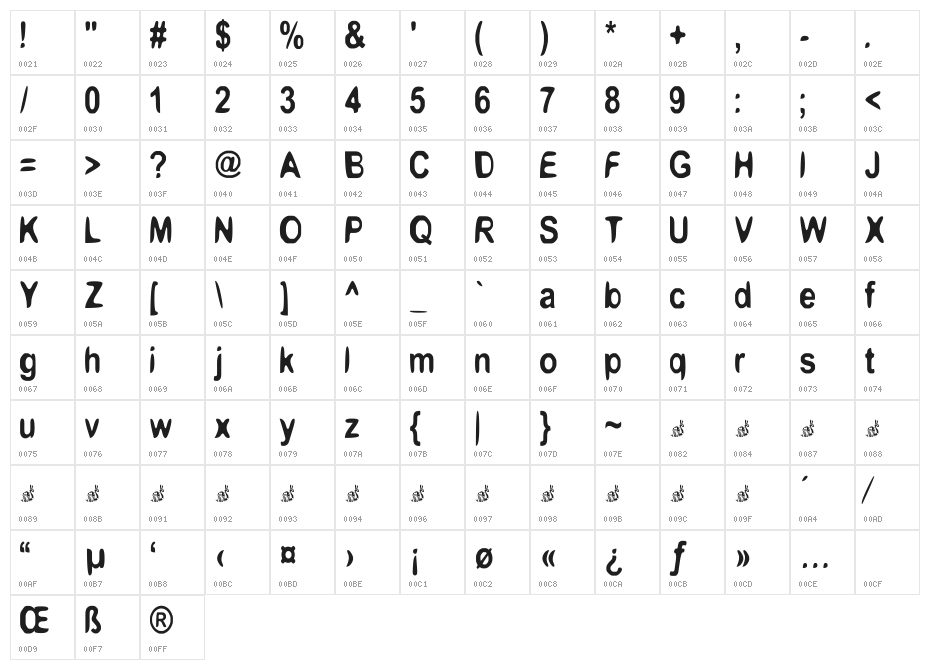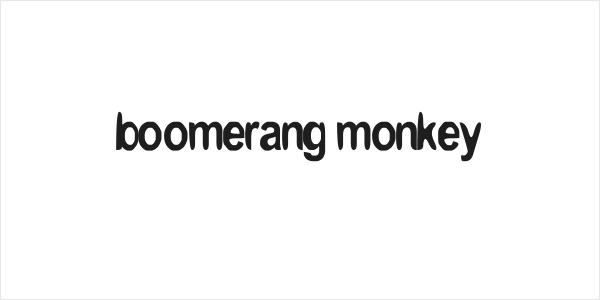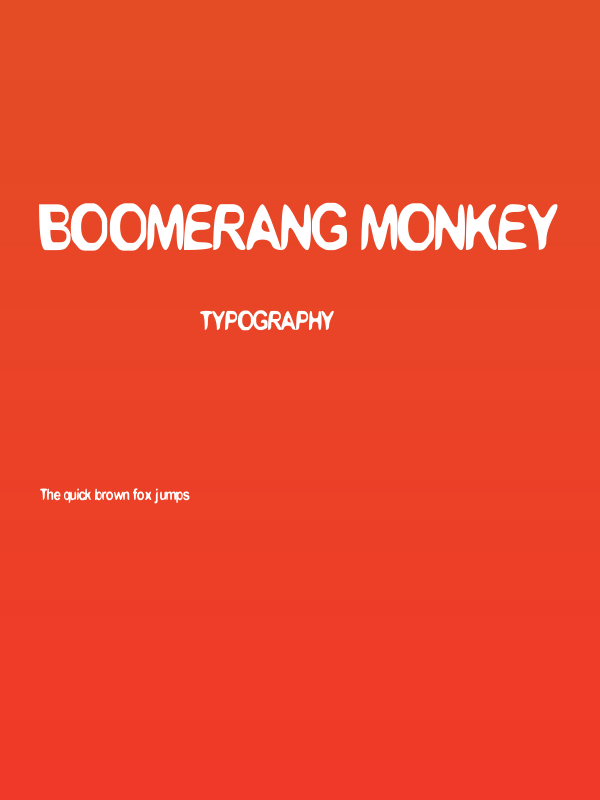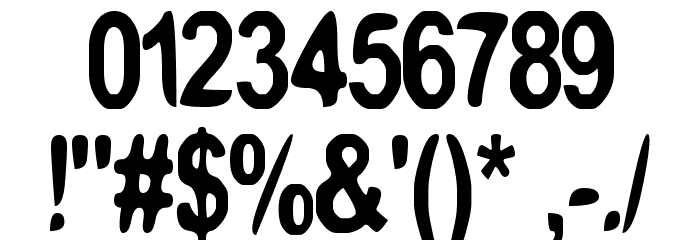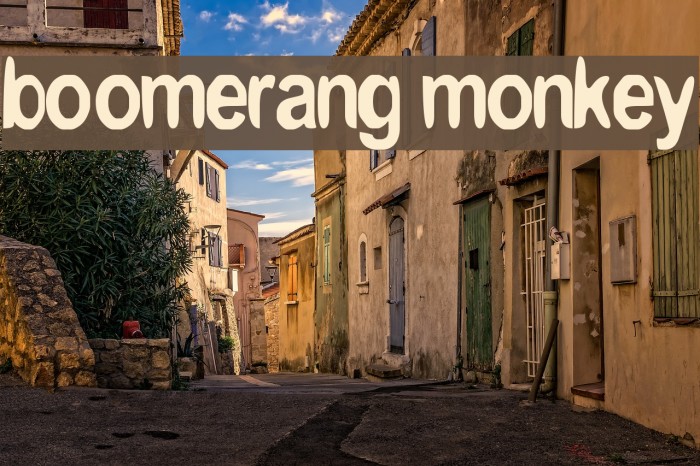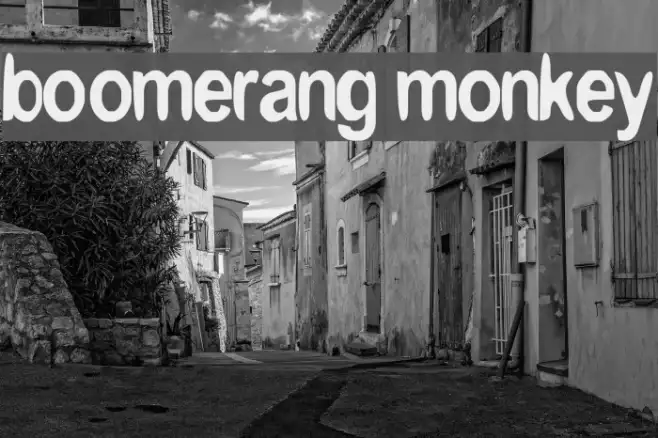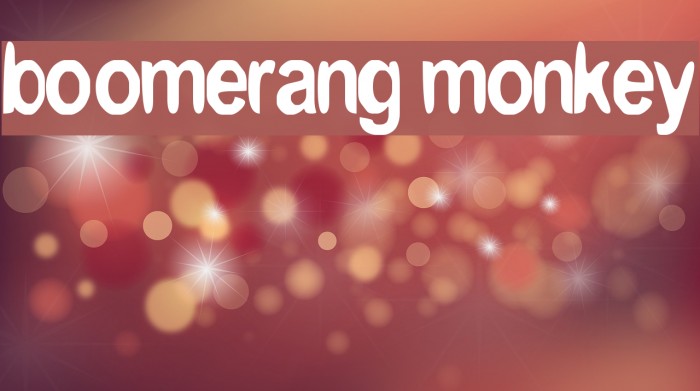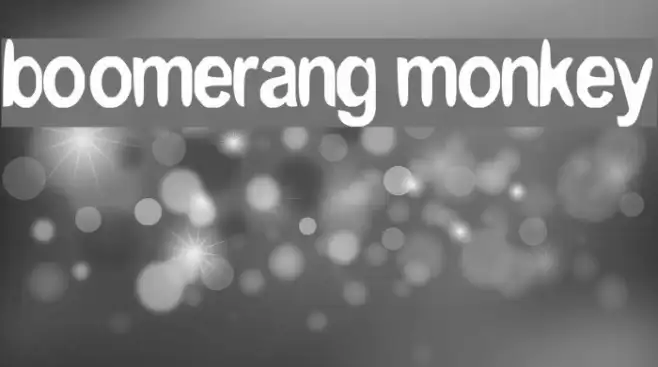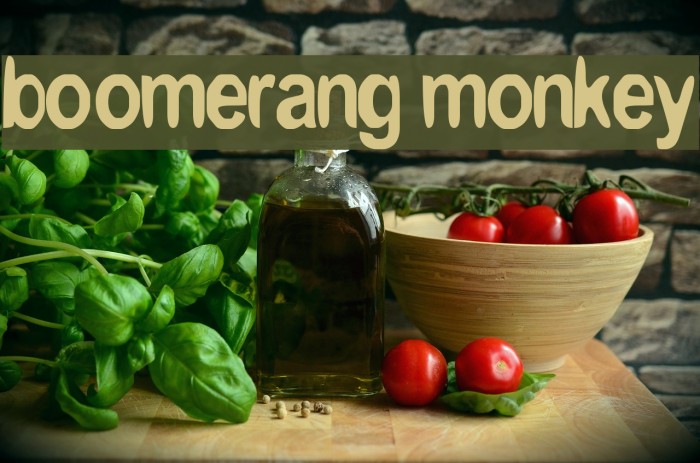
boomerang monkey Font
boomerang monkey Description
This playful and bold font features a whimsical, cartoon-like style with rounded edges and a slightly irregular form. The characters are thick and substantial, giving them a strong presence on the page. The uppercase and lowercase letters maintain a consistent style, with the lowercase letters being slightly more rounded. Numbers and special characters follow the same playful design, making the font suitable for fun and creative projects. The overall appearance is informal and friendly, with a touch of retro charm.
| Overall Style | Playful, Retro |
| Proposed Projects | Ideal for children's books, comic strips, playful branding, and party invitations. |